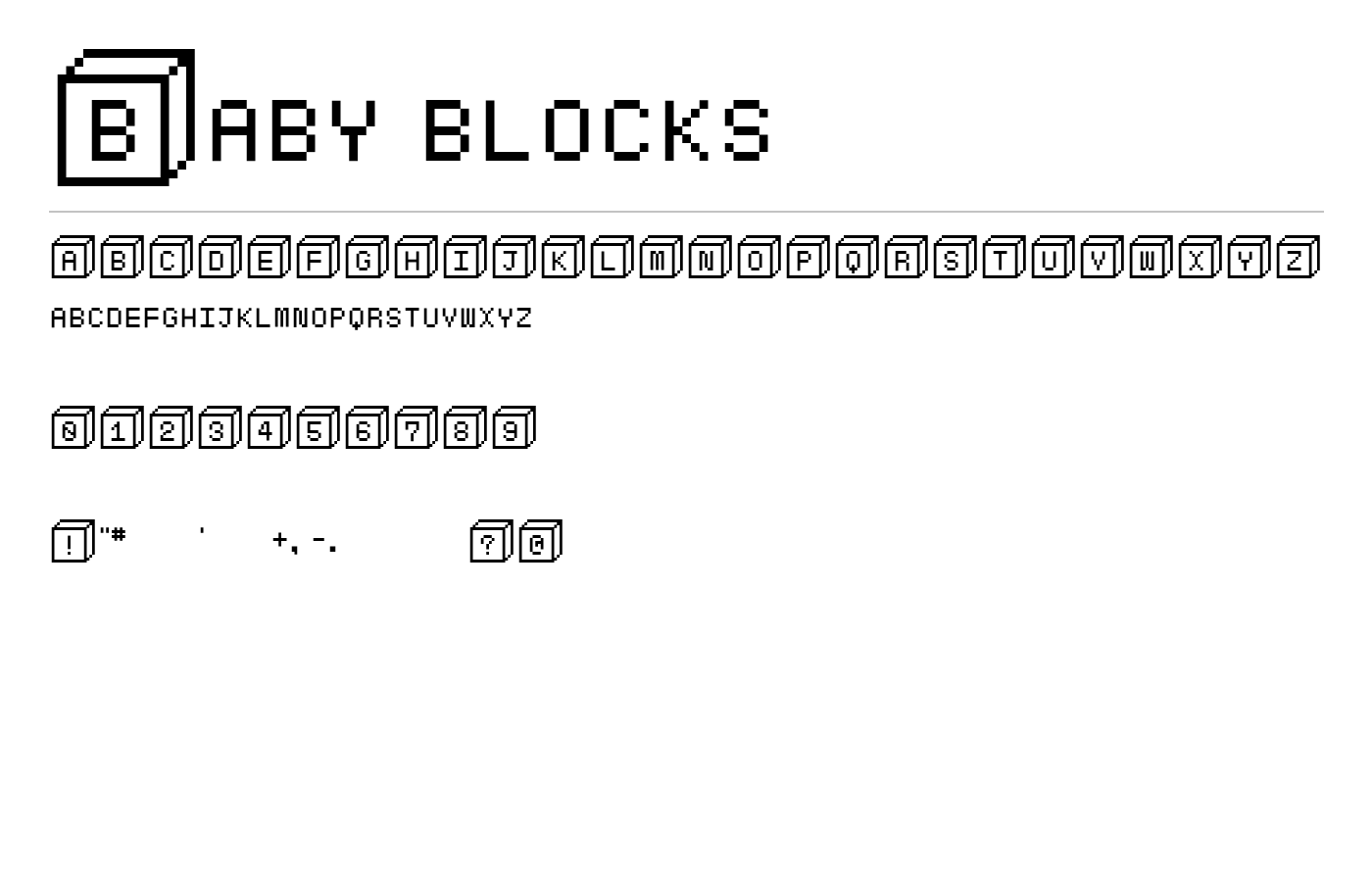
Baby Blocks is a playful, pixelated sans serif font with a blocky, retro video game style that evokes a sense of childhood and simplicity. Its monospaced, pixel-perfect letters and numerals, combined with unique three-dimensional block characters, make it ideal for fun, nostalgic displays, children’s projects, or digital-themed designs seeking a charming and vintage pixel art vibe.
Baby blocks Font
About Baby blocks Font